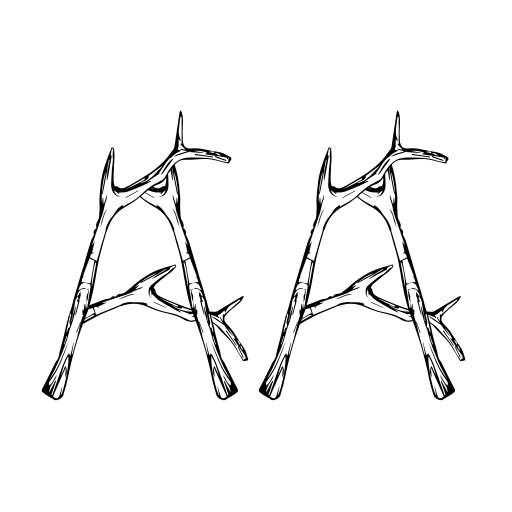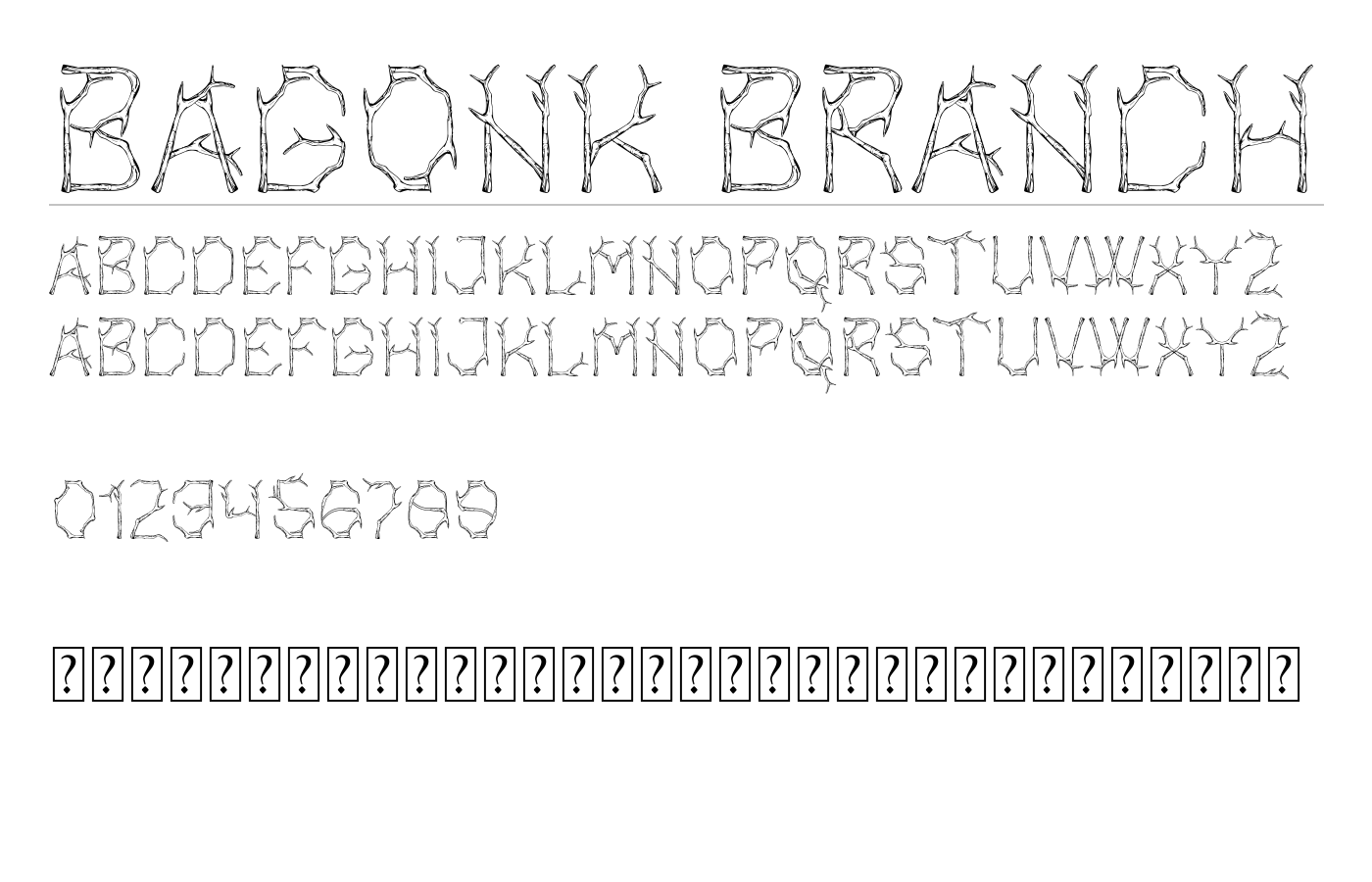
Bagonk is a unique, decorative font that mimics the natural texture and form of tree branches, making it perfect for designs with an organic, rustic, or whimsical vibe. Its slender, irregular strokes create a lively, hand-drawn feel that works well for creative headlines, posters, and nature-themed branding needing a distinctive, earthy touch. This font’s artistic style brings a playful yet raw personality, ideal for projects seeking an unconventional and memorable look.
Bagonk Font
About Bagonk Font